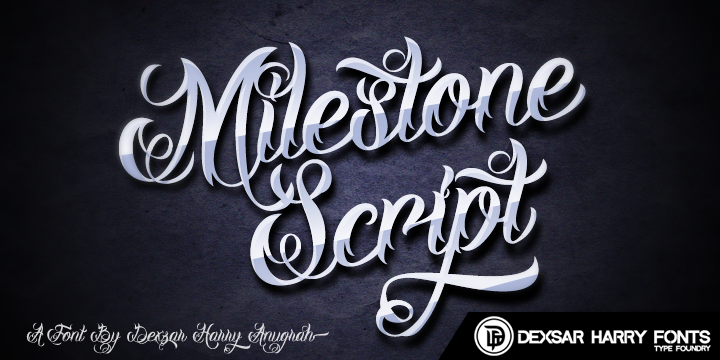
Font name: | DHF Milestone Script |
Author: | Dexsar Harry Anugrah |
Note by Dexsar Harry Anugrah | |
DHF Milestone Script is the script font with many alternates for custom feeling. Milestone Script was made for people who like the script style and tattoo style. This font have many feature OpenType : Contextual Alternate, Swash, Ligatures, Styllistic Alternate, Ordinals & Fraction. This font just for "Personal Use Only!" Full font available at → http://www.aringtypeface.com/milestone-script/ Any question feel free to contact me http://majestype/contact Donations are also appreciated! Like My Facebook Page : https://www.facebook.com/majestype Thanks! |